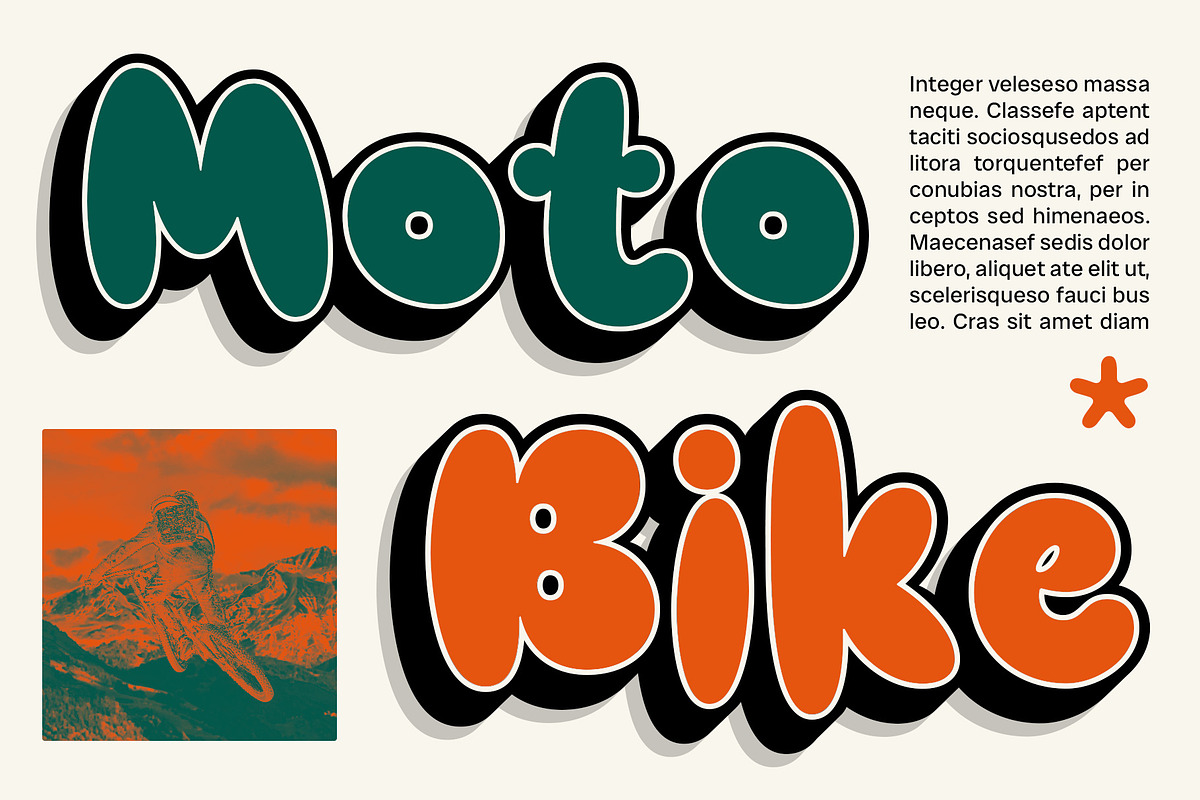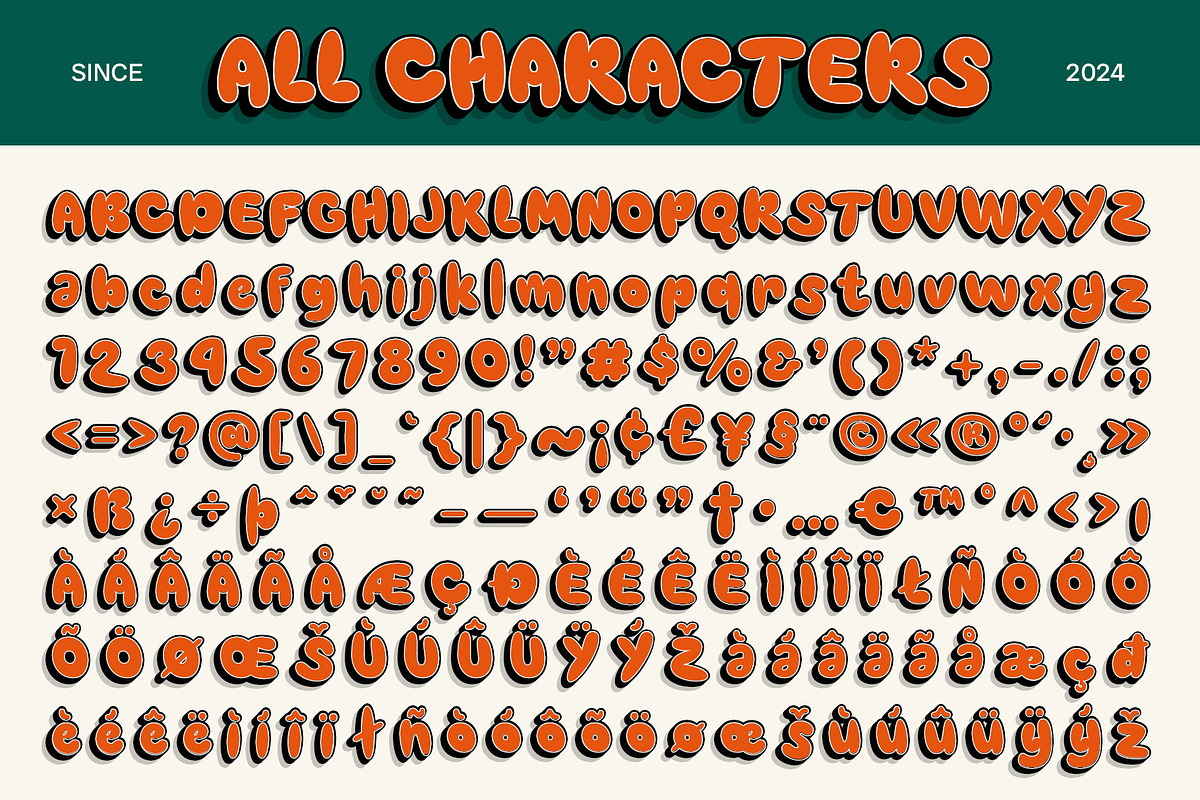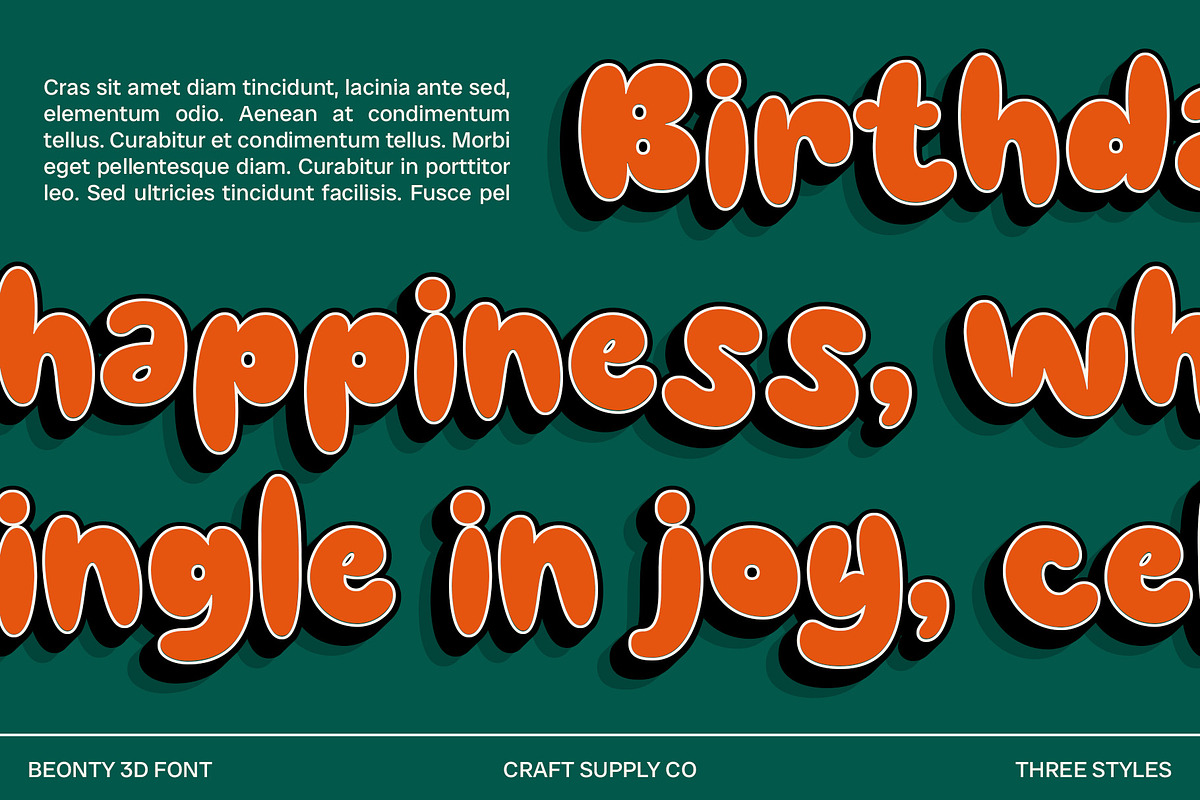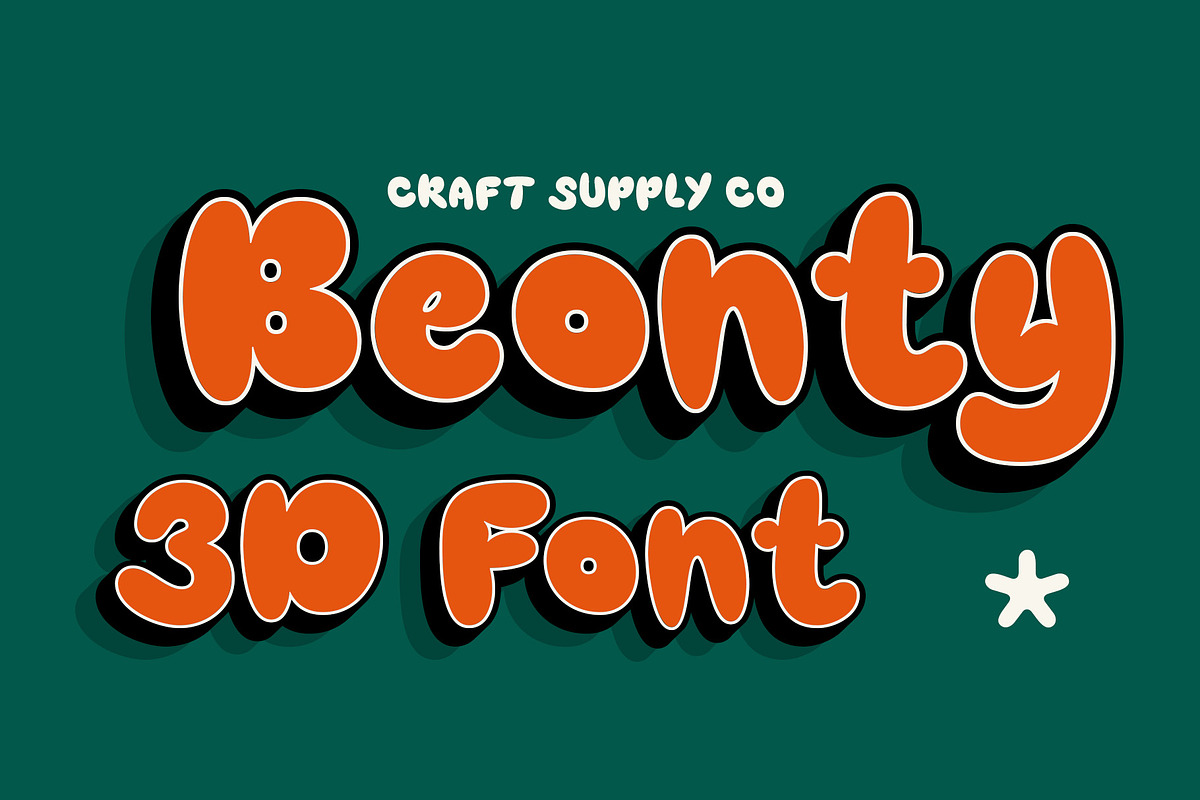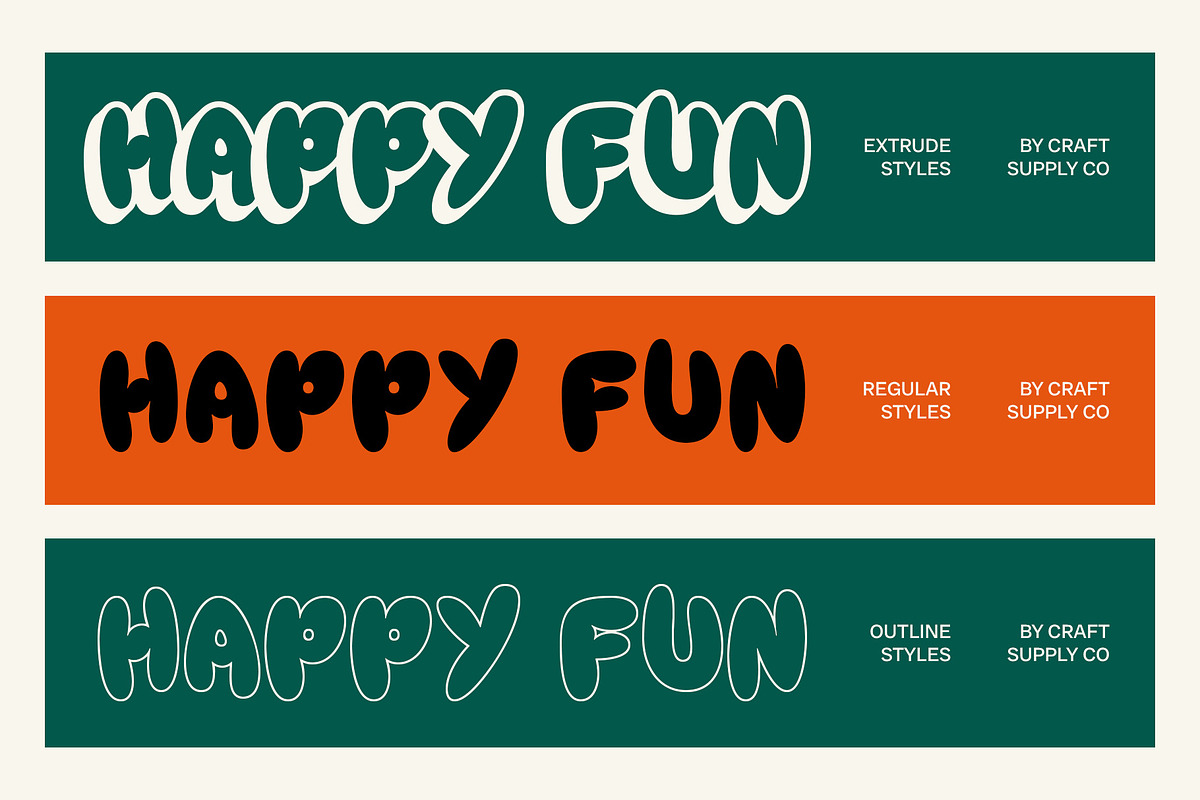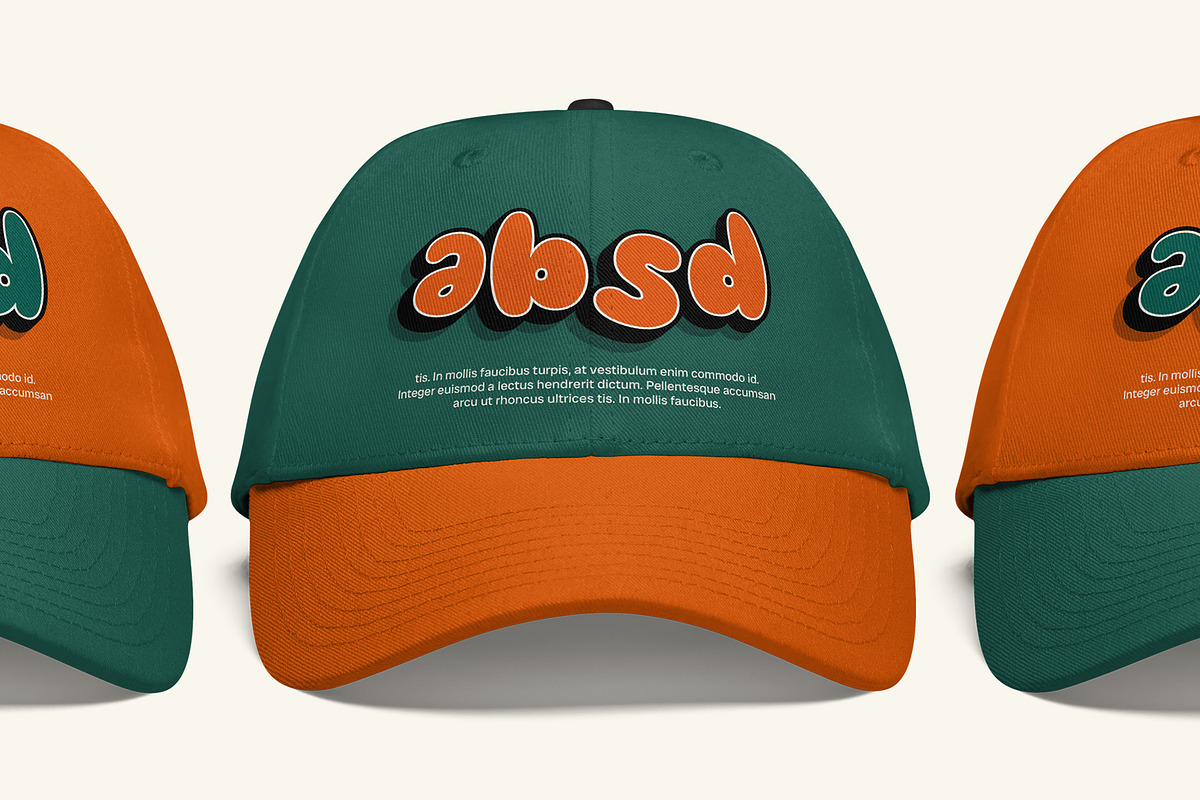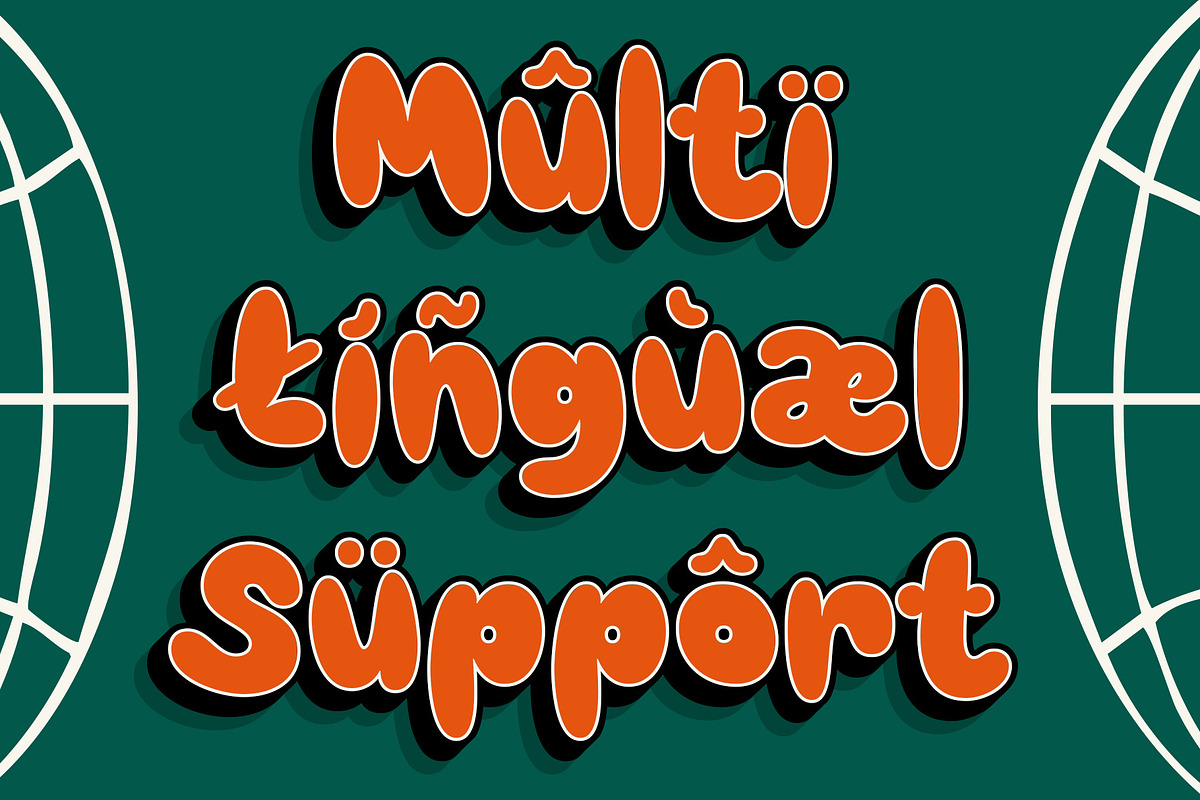
Beonty 3D
Beonty 3D Font: Playful Bubble Font with Dimensional Charm
Cheerful Bubble Shapes with 3D Effect Beonty 3D is a display font that brings playful bubble shapes to life with a dynamic 3D effect. Its rounded, dimensional design combines cuteness and funkiness, creating a cheerful and engaging appearance that captures attention. The 3D effect enhances the font’s fun and vibrant character, making it perfect for lively and creative projects.
Fun and Eye-Catching Design for Various Uses The playful bubble shapes of Beonty 3D, combined with its 3D dimension, make it ideal for projects that require a joyful and standout look. Whether you’re designing children’s materials, party invitations, or inventive branding, this font adds a touch of fun and creativity to any design.
Perfect for Creative and Lively Projects Beonty 3D excels in bringing a cheerful vibe to diverse design applications. Its unique blend of playful shapes and dimensional effects ensures a visually appealing and memorable impact, making it perfect for designs aimed at engaging and delighting audiences.
Versatile for Fun and Engaging Designs From vibrant party invites to playful branding, Beonty 3D offers versatility for a range of fun and creative projects. Its distinctive style and 3D charm provide a bold and entertaining visual statement that enhances the overall design with a touch of whimsy and excitement.
- Beonty Regular
- Beonty Outline
- Beonty Extrude Right
- Beonty Extrude Left